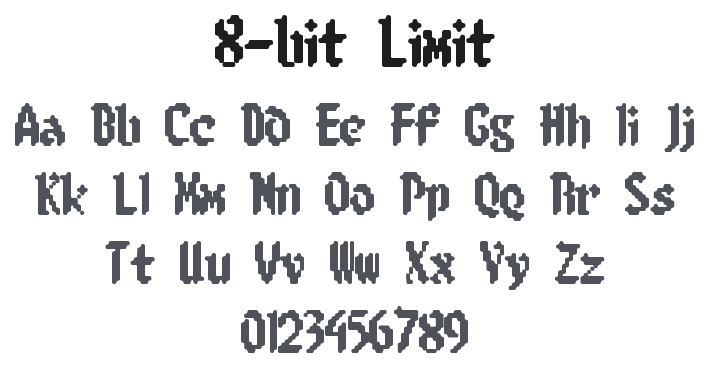
8-bit Limit Font Family
About 8-bit Limit
8-Bit Limit is a pixel-grid bitmap typeface built from tiny square blocks mimicking classic low-resolution arcade screen text — raw, nostalgic, and unapologetically digital. Perfect for retro game interfaces, chiptune event posters, tech-nostalgia branding, and anything channeling 1980s home computer culture.